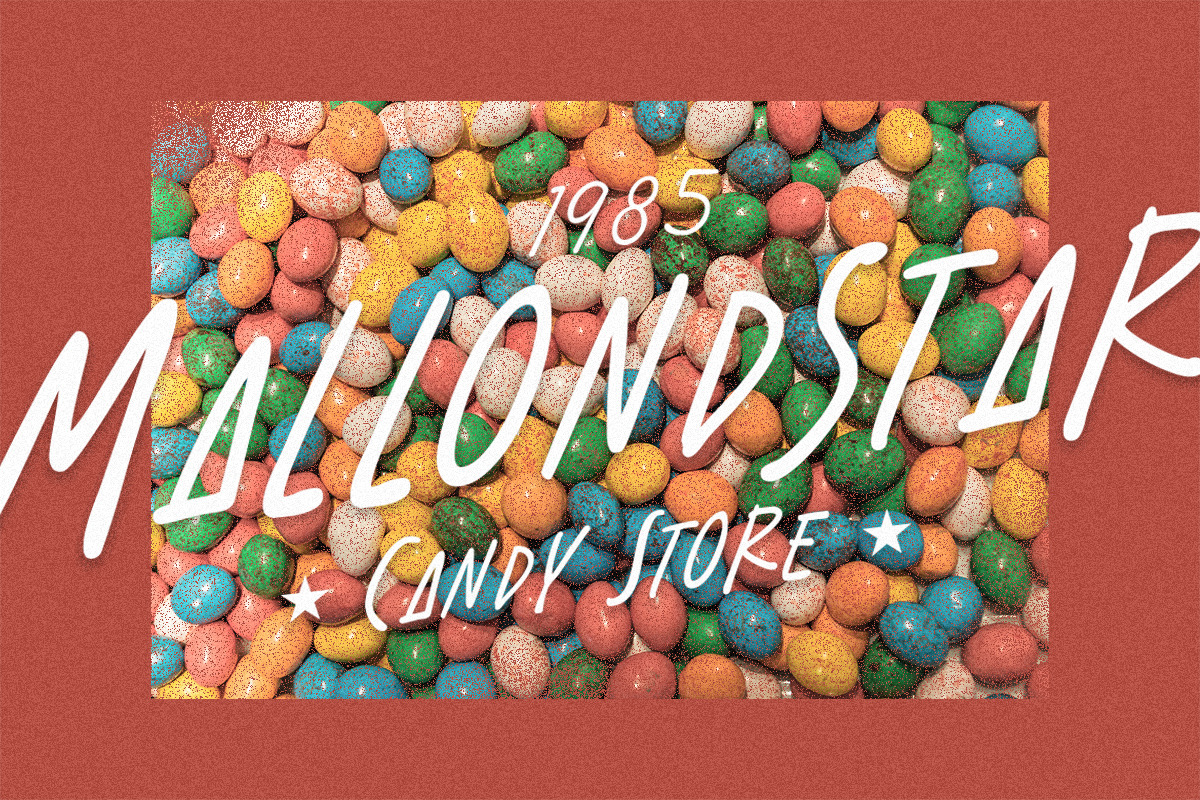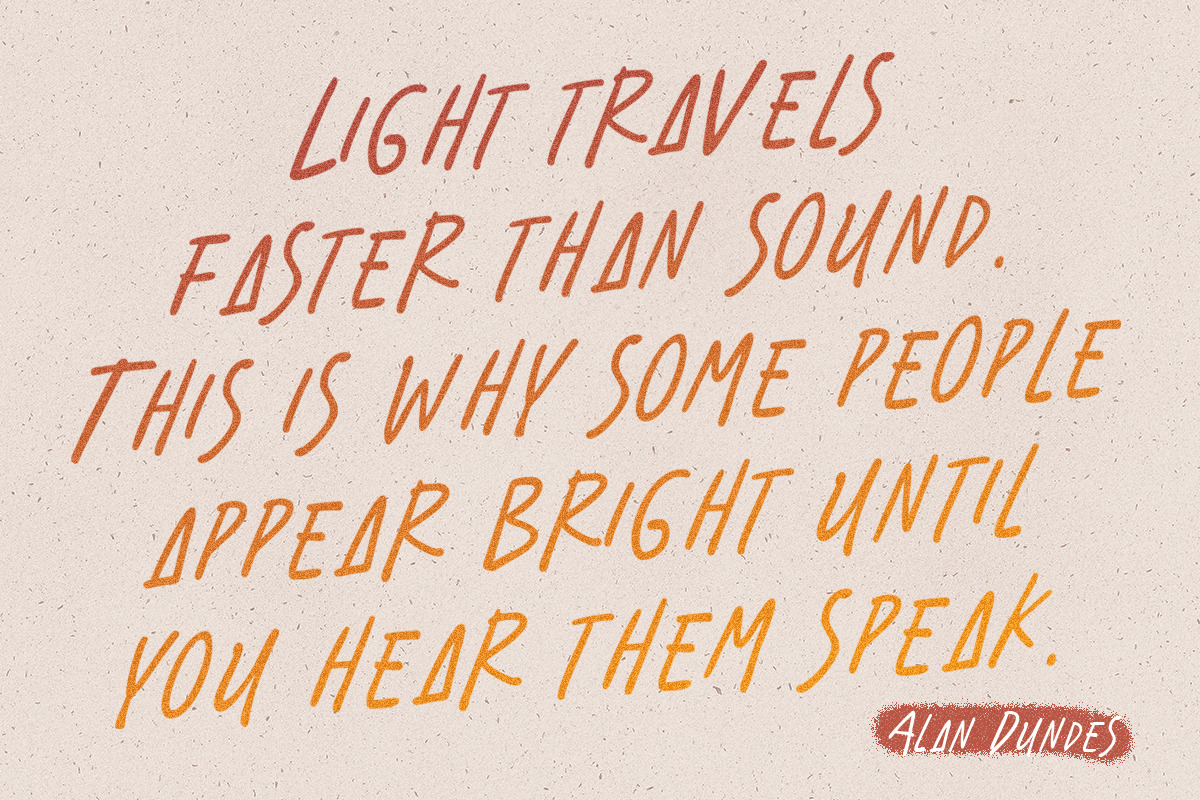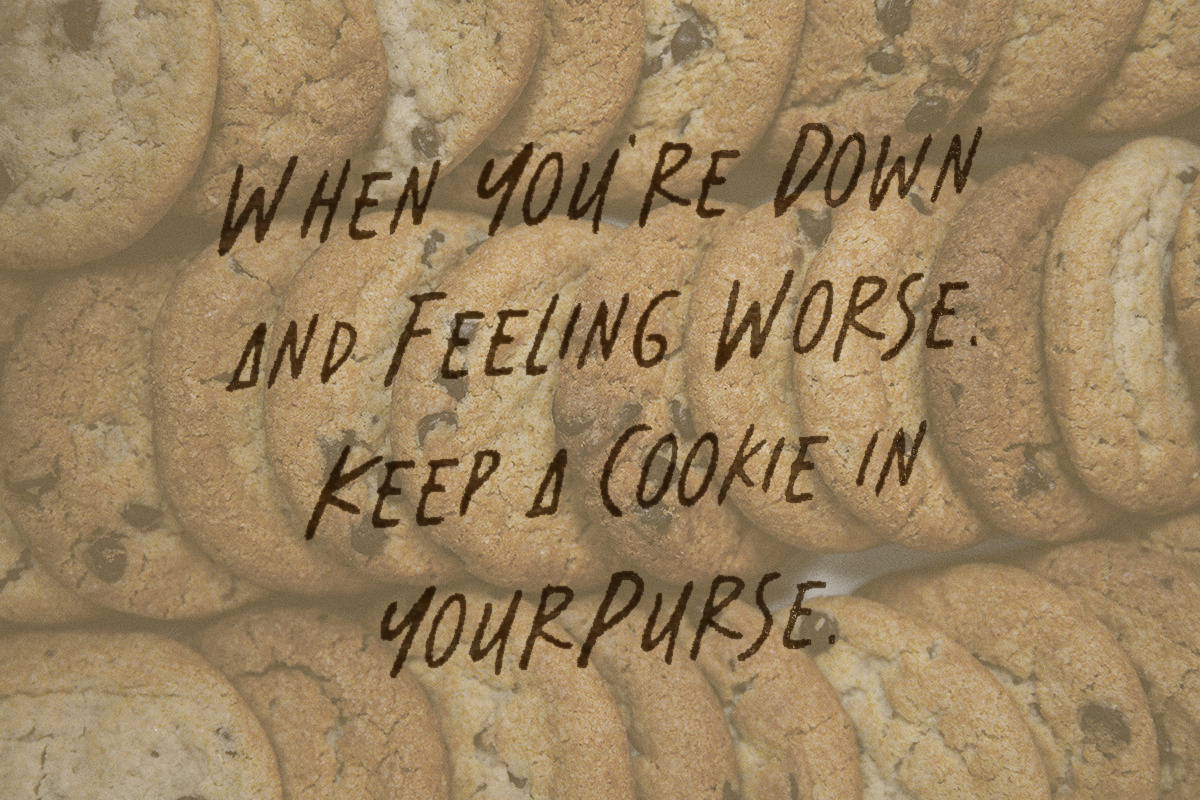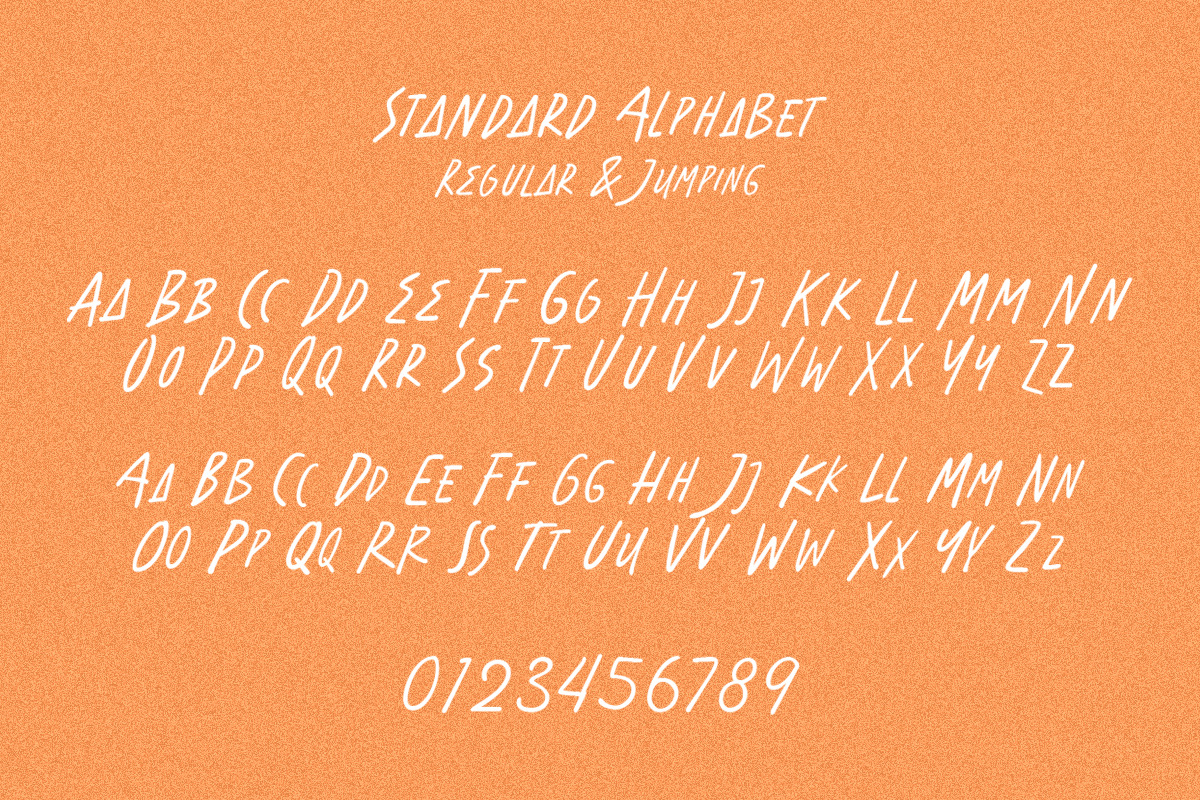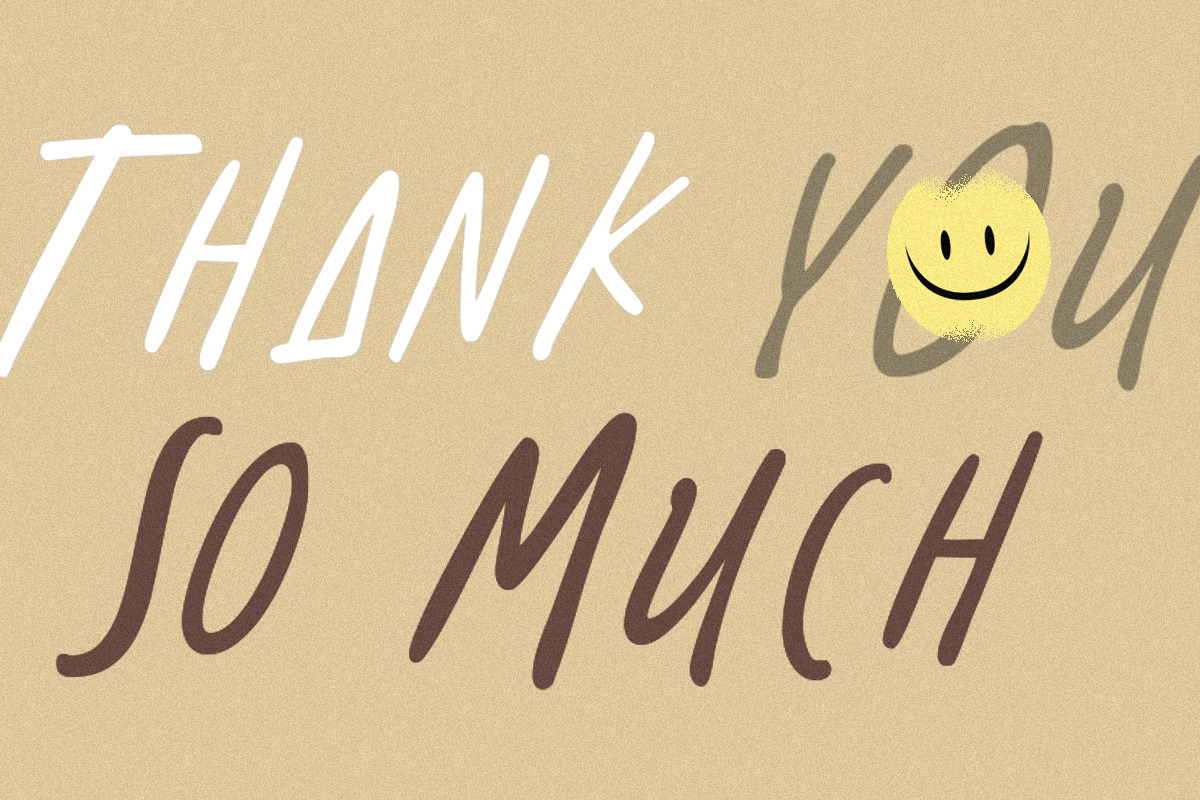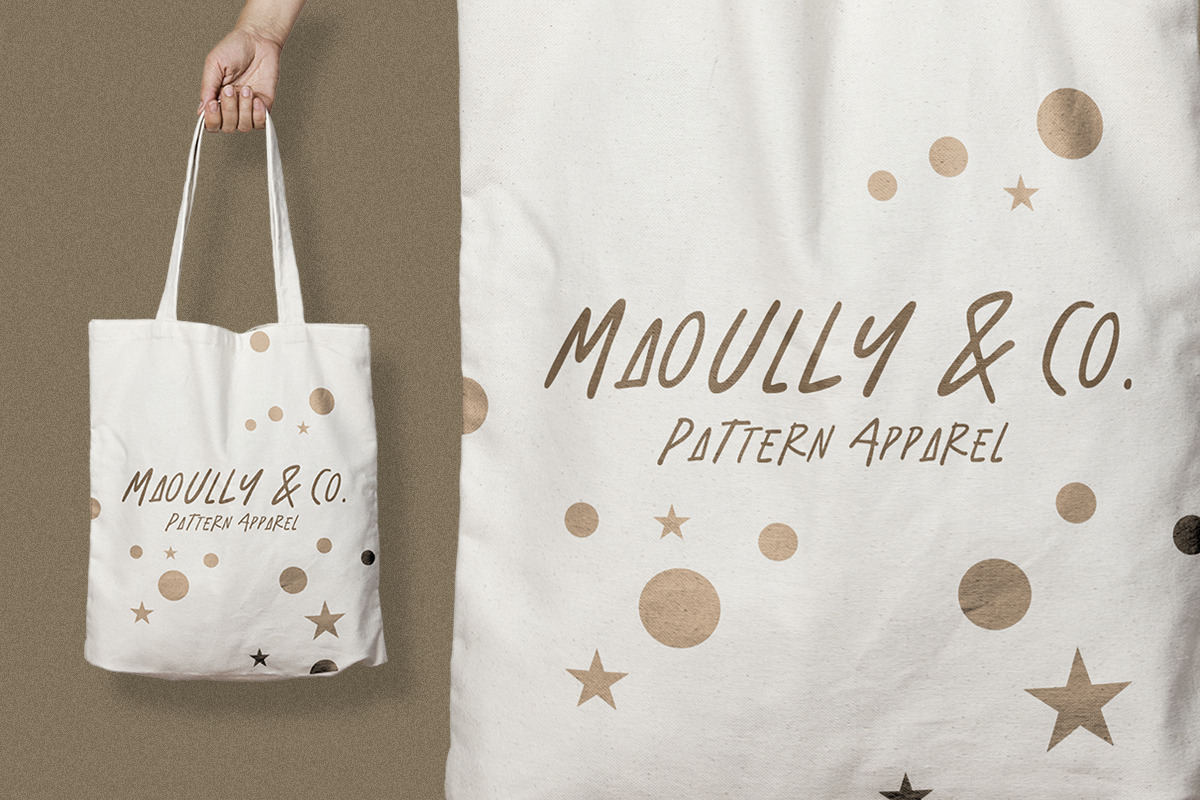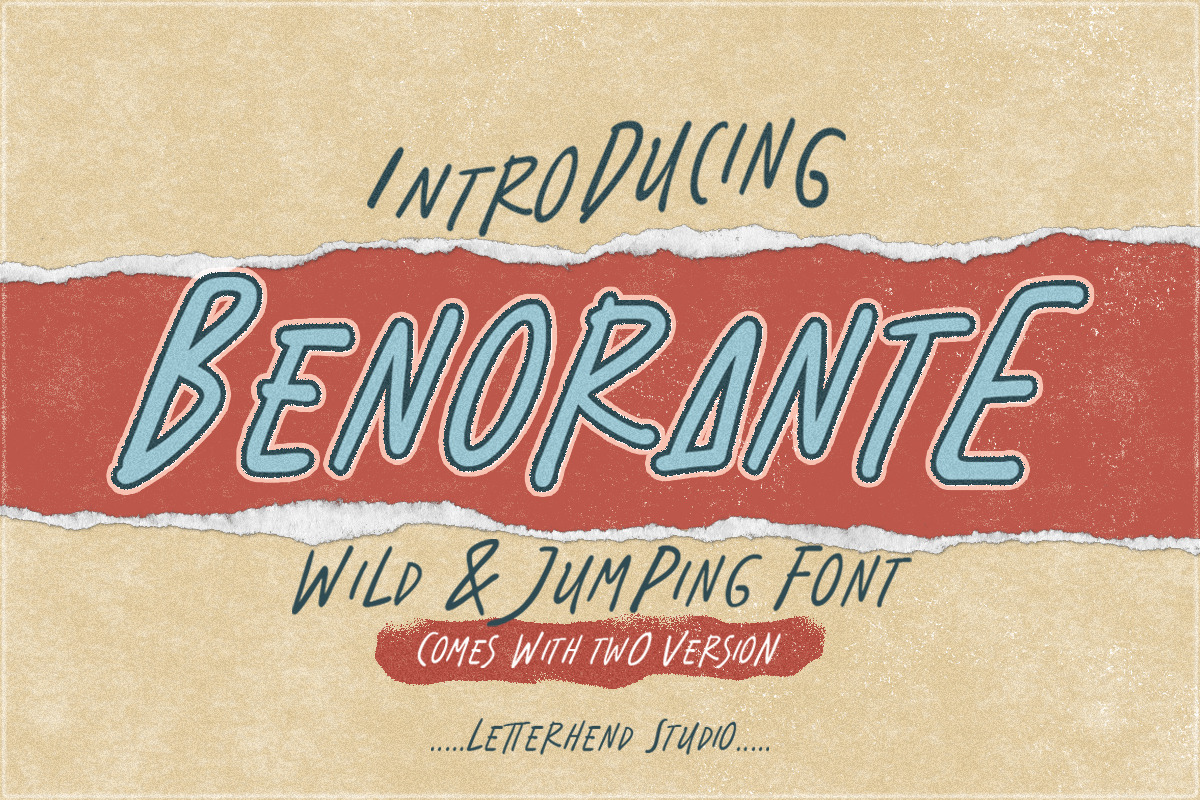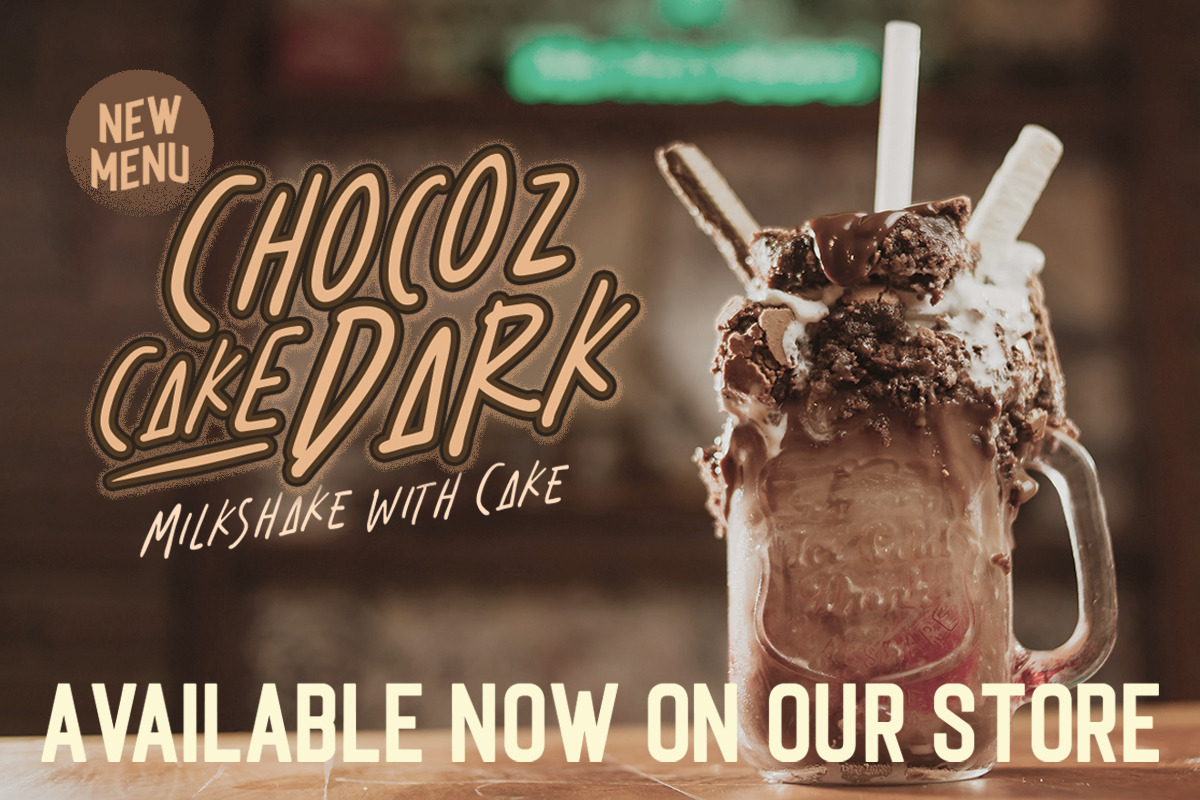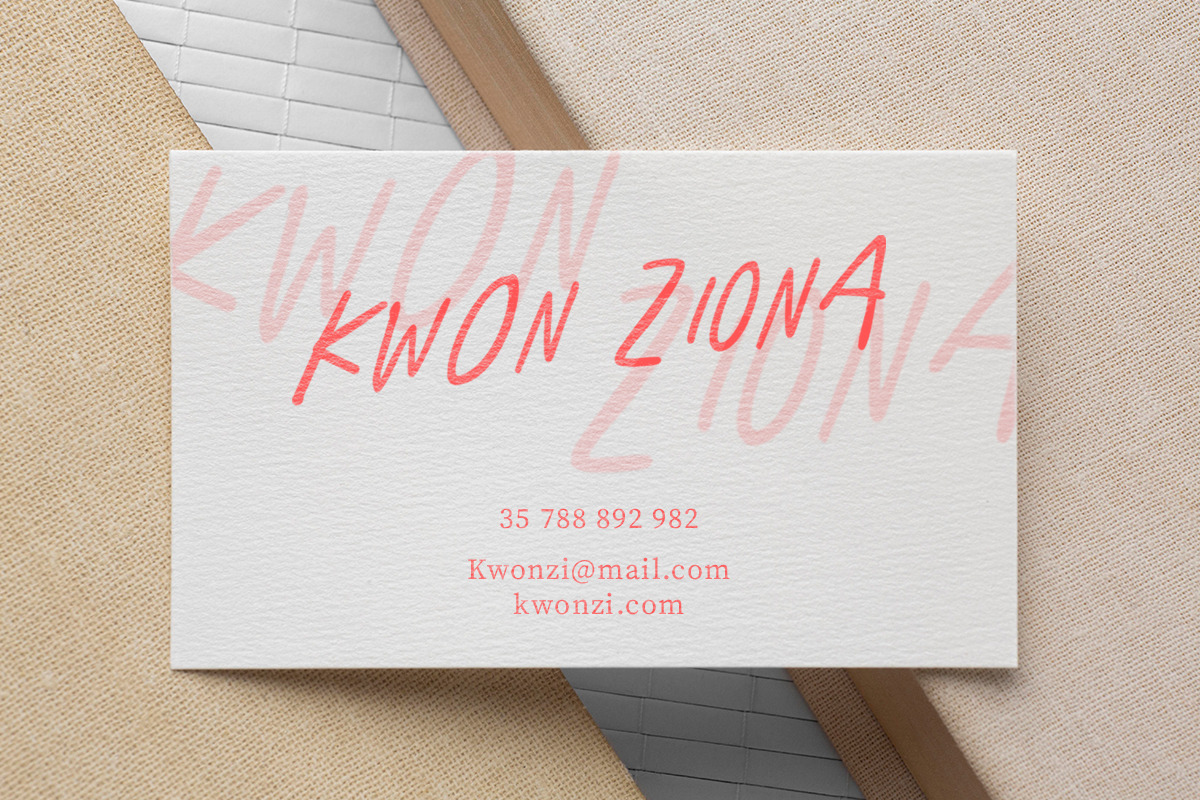
Benorante - Display Font
Introducing, Benorante - a display font with natural hand writing with modern and dynamic feel. This type of font perfectly made to be applied especially in logo, and the other various formal forms such as invitations, labels, logos, magazines, books, greeting / wedding cards, packaging, fashion, make up, stationery, novels, labels or any type of advertising purpose.
- alternates and ligatures